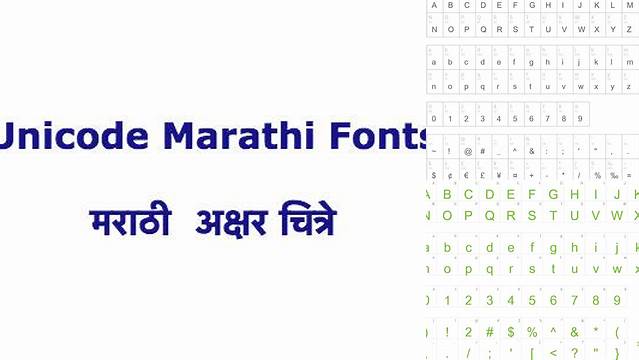
Hey guys! Looking for a way to spice up your Marathi text with a stylish and universally compatible font? You've come to the right place! Today, we're diving deep into the world of the Arial Unicode Marathi font, a fantastic option for anyone who wants to display and share Marathi content seamlessly. And the best part? We'll explore how you can get your hands on it with a free download! So, buckle up and let's get started! This guide will provide everything you need to know about the Arial Unicode Marathi font, including how to download, install, and use it effectively for all your Marathi text needs. Whether you're a student, a professional, or just someone who loves the Marathi language, this font is a must-have. Let’s learn more about how to integrate this incredible font into your digital life.
Understanding Arial Unicode and Its Marathi Adaptation
Alright, first things first: what exactly is Arial Unicode? It's a member of the Arial family, one of the most popular and widely used fonts globally. Its Unicode version is designed to support a vast range of characters from different languages, which makes it incredibly versatile. This is where the Marathi adaptation comes in. The standard Arial font doesn't inherently include all the characters needed for Marathi script. However, the Arial Unicode version includes specific glyphs designed to render Marathi text correctly. This ensures that your text displays beautifully and accurately, regardless of the device or platform used to view it. This means you can share your Marathi documents, presentations, and creative projects without worrying about compatibility issues or garbled text. Imagine the frustration of spending hours crafting a beautiful document, only to have it look like gibberish on someone else's screen! With Arial Unicode Marathi font, those worries become a thing of the past. Understanding the technical side helps us appreciate its practical benefits. The font's design includes both the standard Latin characters and the specific characters required for Marathi, ensuring smooth rendering across platforms. This feature is incredibly helpful for anyone involved in Marathi content creation, as you can be confident your audience will see the intended text. This adaptability makes Arial Unicode Marathi a great choice for professional use, like creating brochures, presentations, and reports.
When you're working with this font, you're not just using a tool to display text; you're preserving the integrity and beauty of the Marathi language in the digital world. And let's not forget the importance of consistency! Using a standard font like Arial Unicode Marathi ensures that all your documents and projects look polished and professional. This uniformity creates a sense of cohesion, whether you're writing a simple email or a complex academic paper. Whether you're a student writing a report, a professional creating marketing materials, or a language enthusiast sharing content online, having a reliable font like Arial Unicode Marathi is essential for ensuring accuracy and clarity in your work. So, by using this font you are contributing to the accessibility and preservation of the Marathi language. By choosing this font, you are setting yourself up for consistent, high-quality output.
Exploring the Features of Arial Unicode Marathi Font
So, what makes Arial Unicode Marathi font so special? Well, it's not just about having the right characters; it's about the overall design and functionality. This font offers excellent readability, making it easy to read text both on screen and in print. The design is clean and modern, making it suitable for a wide range of applications. The kerning and spacing are also optimized for the Marathi script, ensuring the characters are rendered correctly and don't overlap or appear too far apart. This attention to detail makes a huge difference when it comes to the visual appeal and readability of your text. Besides great design, the font's versatility is key. You can use it in various formats, from simple text documents to complex design projects. Whether you're creating posters, websites, or presentations, Arial Unicode Marathi will help you communicate your message clearly and effectively. This kind of adaptability is a huge benefit for anyone who works with Marathi content, as it saves time and effort by eliminating the need for separate fonts. The font also includes different weights and styles, giving you plenty of options to customize your text and make it stand out. Whether you want bold headlines, italicized quotes, or regular body text, the Arial Unicode Marathi font has all the tools you need to create visually appealing documents. This range of options makes your content more engaging and accessible for your audience. The font ensures that your content is not only informative but also visually appealing and easy to read. By using the appropriate font, you are providing a better overall user experience.
Whether you're creating documents, designing websites, or simply typing emails, Arial Unicode Marathi has got you covered. It offers both flexibility and reliability. This font will ensure your text looks great on any device. Get creative, and embrace the Arial Unicode Marathi font. And get ready to see your Marathi content shine! So, download your free copy today and begin creating stunning Marathi text with ease and confidence. Happy creating, folks!